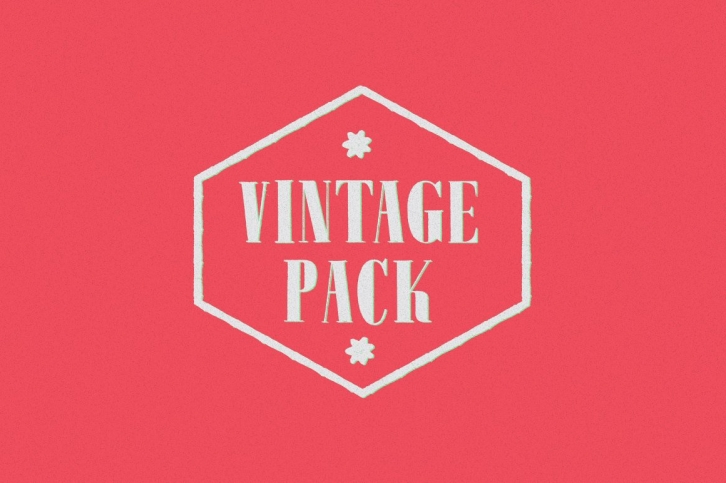
Pack is perfect for labels, apparel, posters, titles, headlines... and more!
letters from A to Z as CAPS
numbers from 0 to 9
labels
dingbats
frames
hands
everything with vintage feel and high resolution!